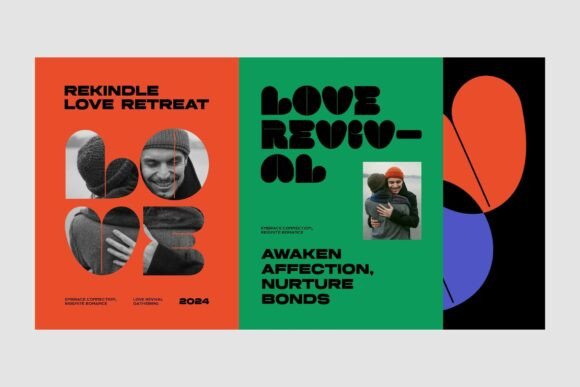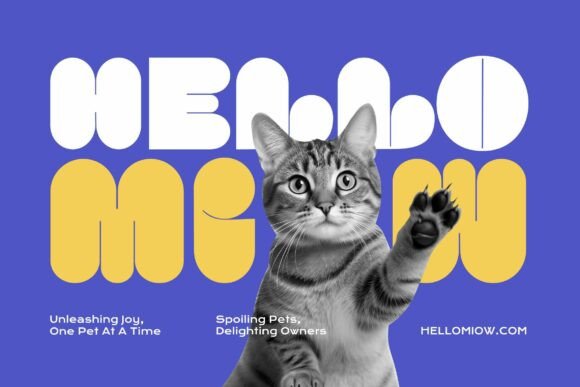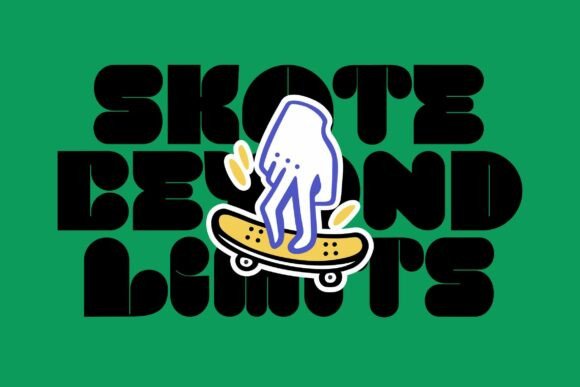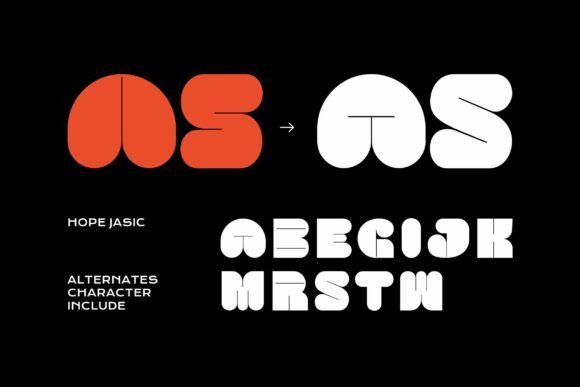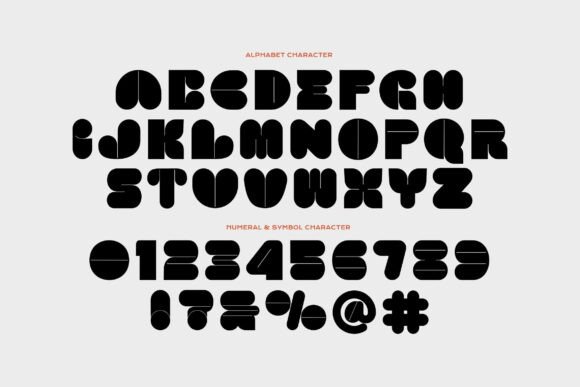
Introduction to Hope Jasic Font
Hope Jasic is a unique display font made in a bold and rounded style with a fun and playful impression, Hope Jasic is suitable for your designs that require a bold, chubby, fat and cheerful style.
Whether youโre working on food product branding, creating a display headline, or designing packaging for your latest project Hope Jasic font is perfect for creating eye-catching designs that demand attention.